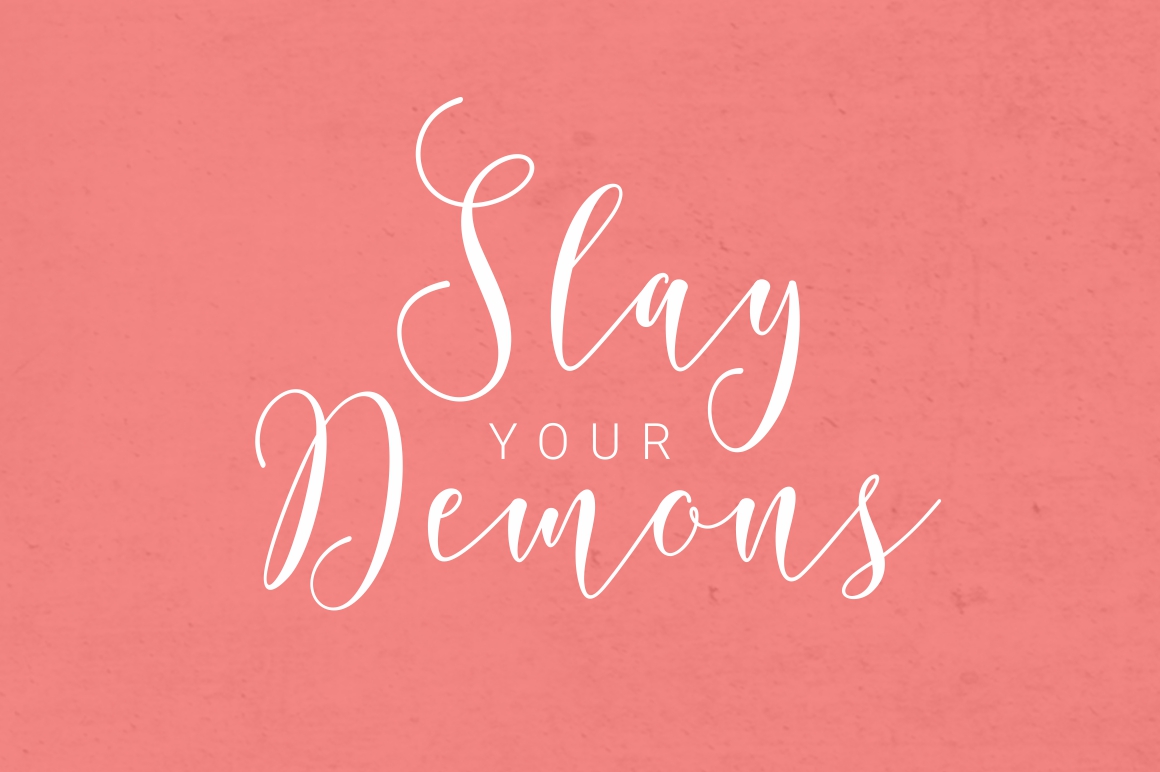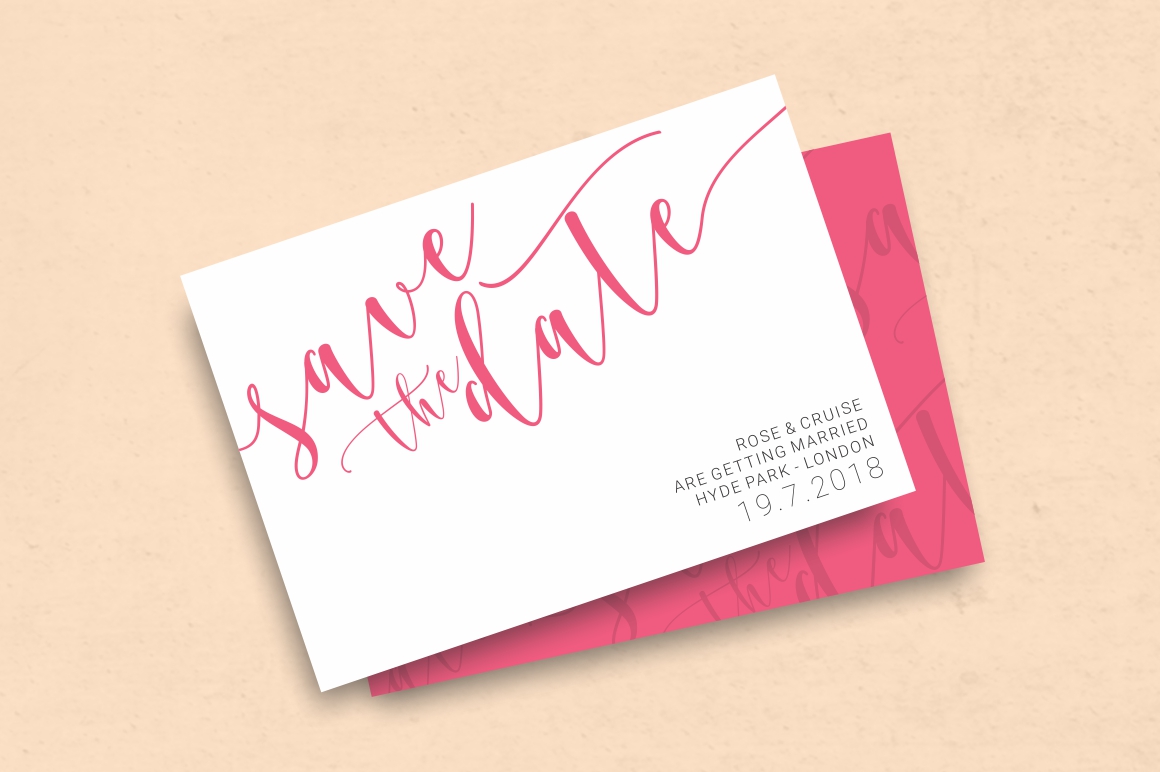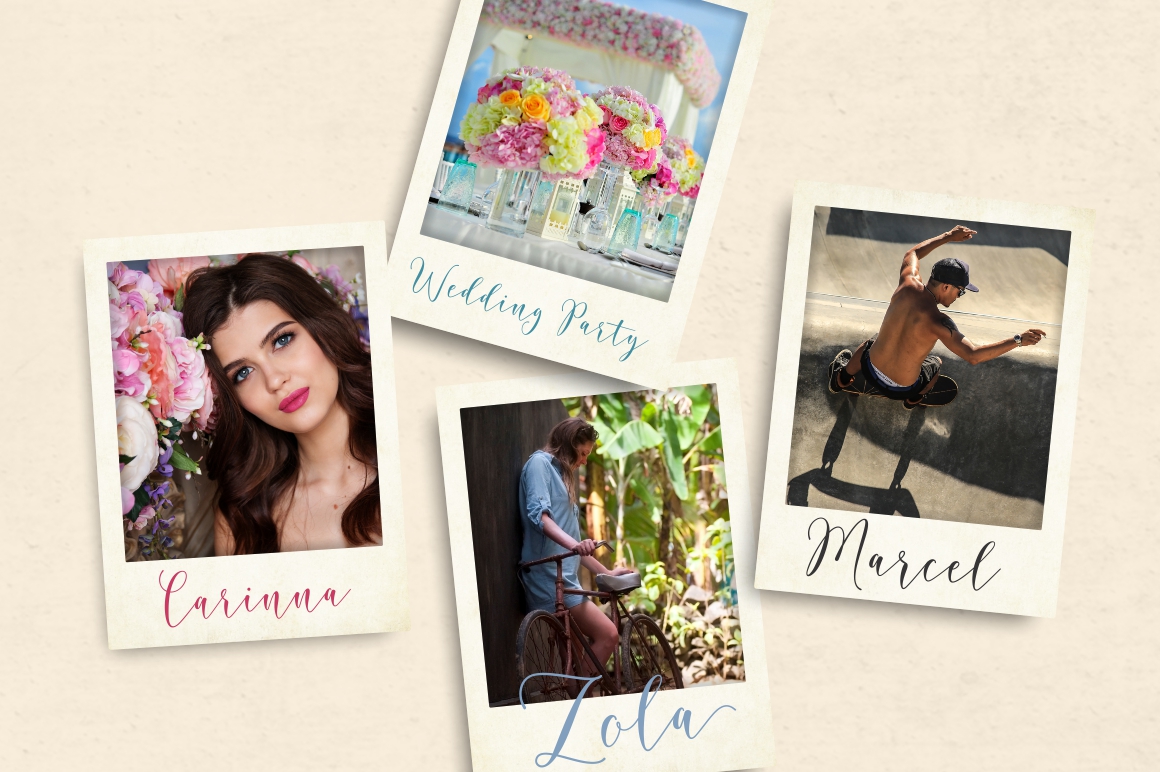
Introduction to Rosetica Font
That’s where the Rosetica Font comes in – a smooth script font that’s sure to elevate any creative project. With over 700 unique handmade glyphs, this font offers unparalleled versatility and depth, making it an invaluable design resource for professionals and enthusiasts alike.
Whether you’re working on a personal project or collaborating with a team, the Rosetica Font is a free download that’s sure to enhance your design workflow. Its transparent background and smooth curves make it perfect for creating eye-catching visuals, from elegant wedding invitations to captivating blog headers.
- High-quality design: Rosetica Font offers a unique and elegant style, perfect for creative projects.
- Unique characteristics: The Rosetica Font features a distinctive, hand-drawn feel, making it an excellent choice for designers looking to add a touch of personality to their creative project.
- Legibility: The font’s clean lines and simple design ensure excellent legibility, even at smaller font sizes.
As a designer, I’m always on the lookout for high-quality fonts that can elevate my creative projects. The Rosetica Font is one such find, and I’m excited to share my thoughts on this beautiful typeface.
- ✨ Elegant and sophisticated design that adds a touch of sophistication to any project
- ✨ Highly versatile and can be used for a variety of creative projects, from print to digital design
- ⚠️ Limited character set, which may not be ideal for complex or technical projects
- ⚠️ Not as extensive as some other font libraries, but still a solid choice for most design needs
Overall, I’m impressed with the Rosetica Font’s elegant design and versatility. While it may have some limitations, it’s an excellent choice for designers working on creative projects that require a touch of sophistication. With its free download and transparent background, it’s definitely a design resource worth considering.
Common Use Cases for Rosetica Font
Rosetica Font is a versatile design resource that can be used for a wide range of creative projects, including logos, business cards, and social media graphics. It’s also a great choice for presentations, documents, and other professional materials that require a high-quality, transparent background.